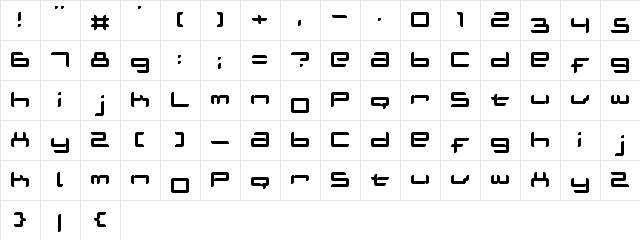
Ablattive Regular
Design Context for Ablattive Typeface
Ablattive takes a measured approach to typography — its balanced proportions and neutral character make it a reliable workhorse for both digital and print work.
Pro Tip: Use Ablattive in both headline and body roles to test its range before committing to a single application.